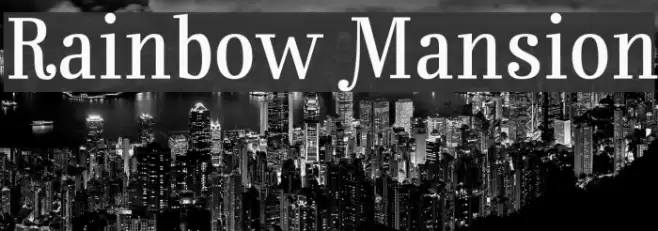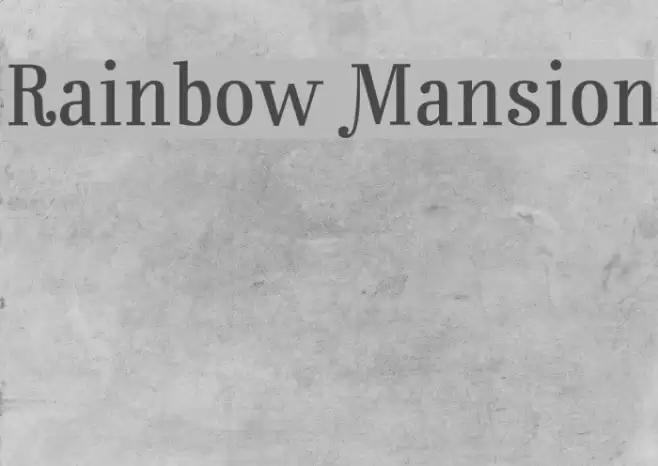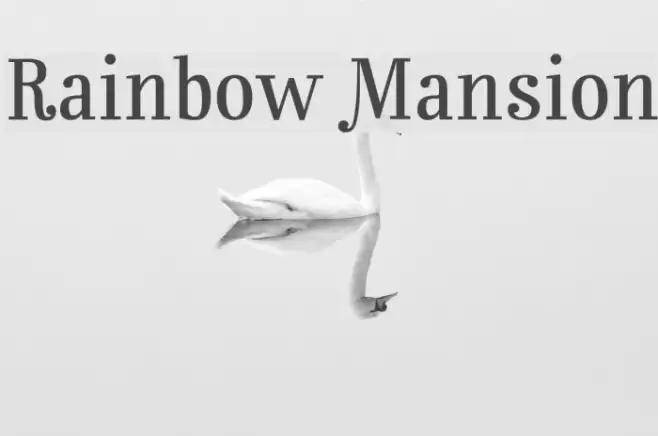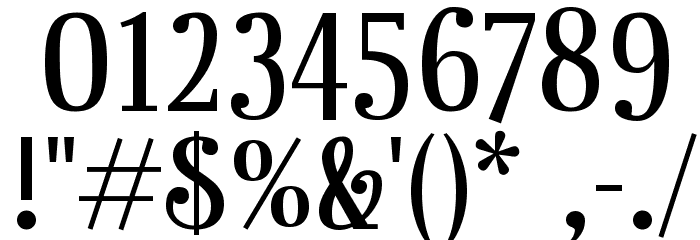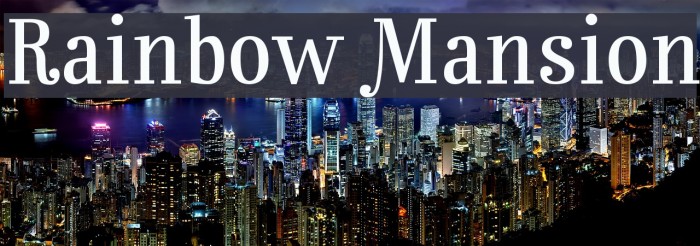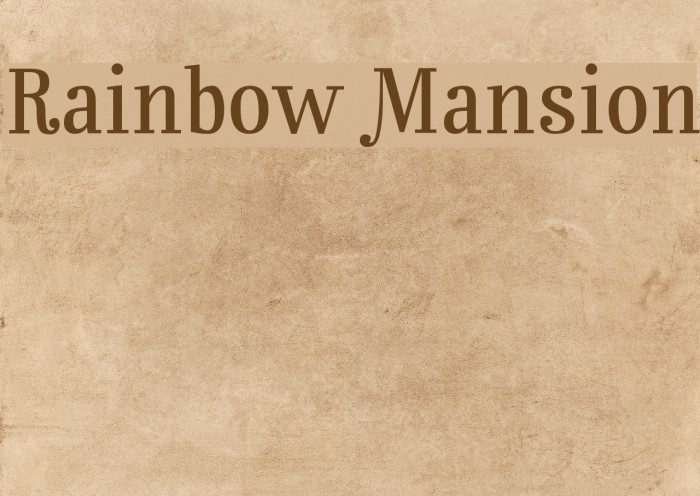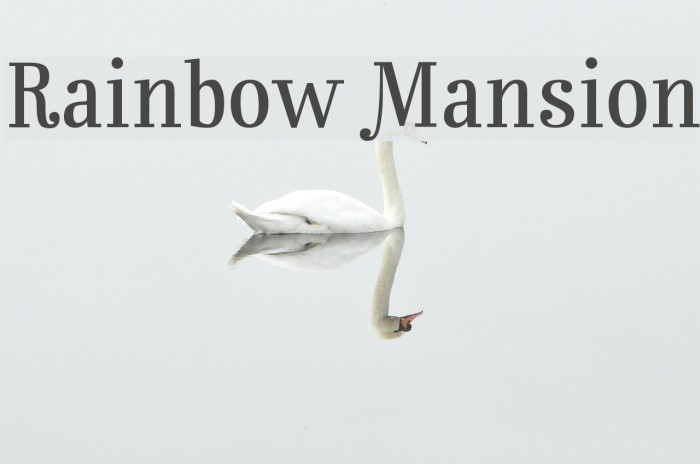
Rainbow Mansion Font
Rainbow Mansion Description
This font features a classic serif style with elegant curves and a refined appearance. The uppercase letters are bold and commanding, while the lowercase letters maintain a balanced and readable form. The numerals are distinct and clear, making them suitable for both formal and casual contexts. Special characters are well-integrated, maintaining the overall aesthetic. The font's design is versatile, offering a timeless appeal that can enhance various design projects. Its structure is both traditional and sophisticated, making it a great choice for conveying professionalism and elegance.
A classic serif font with elegant curves and a refined, timeless appearance from Uncategorized fonts.
- Proposed Projects: Ideal for book covers, editorial design, branding, and formal invitations.
- Overall Style: Classic